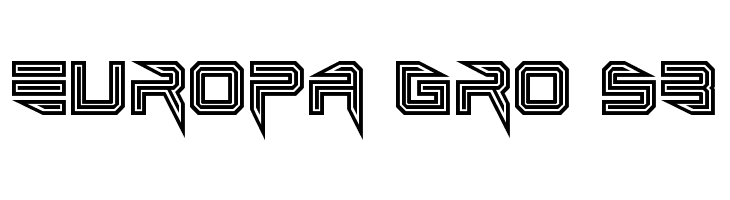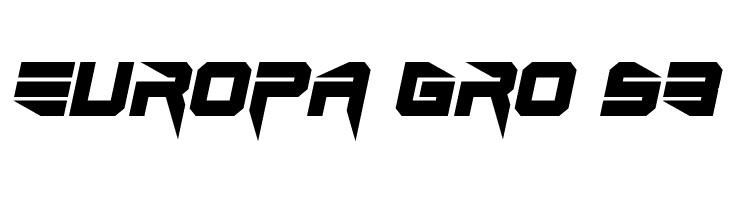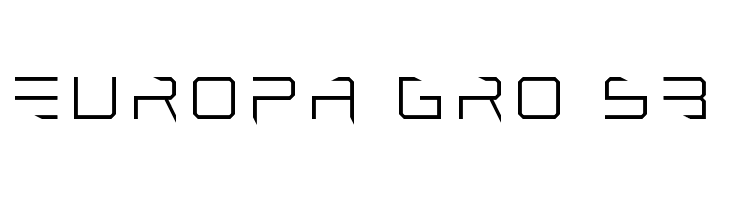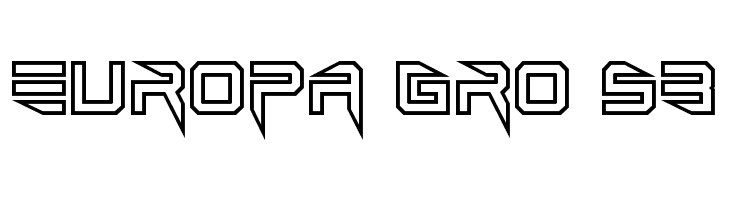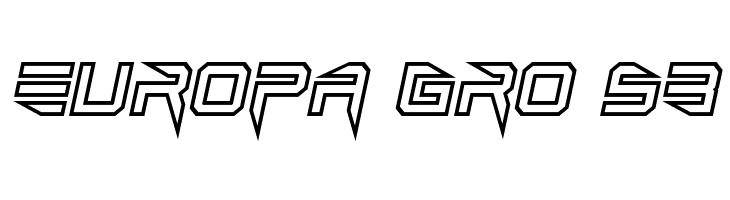
A bold, futuristic font with sharp, angular lines and an inline style.
A bold, angular, and futuristic font with an aggressive, dynamic style.
A futuristic, angular font with sharp edges and geometric shapes.
A bold, angular, and futuristic font with hollow interiors and sharp edges.
A bold, angular, and italicized font with a futuristic, edgy design.